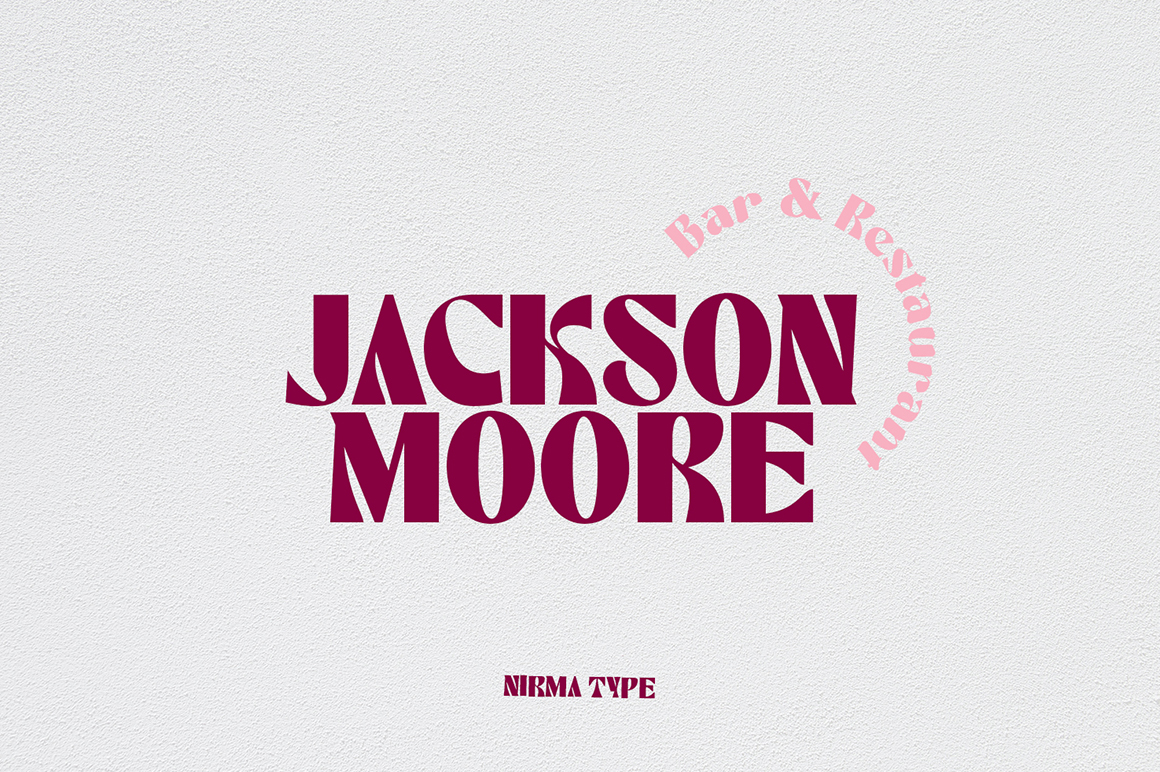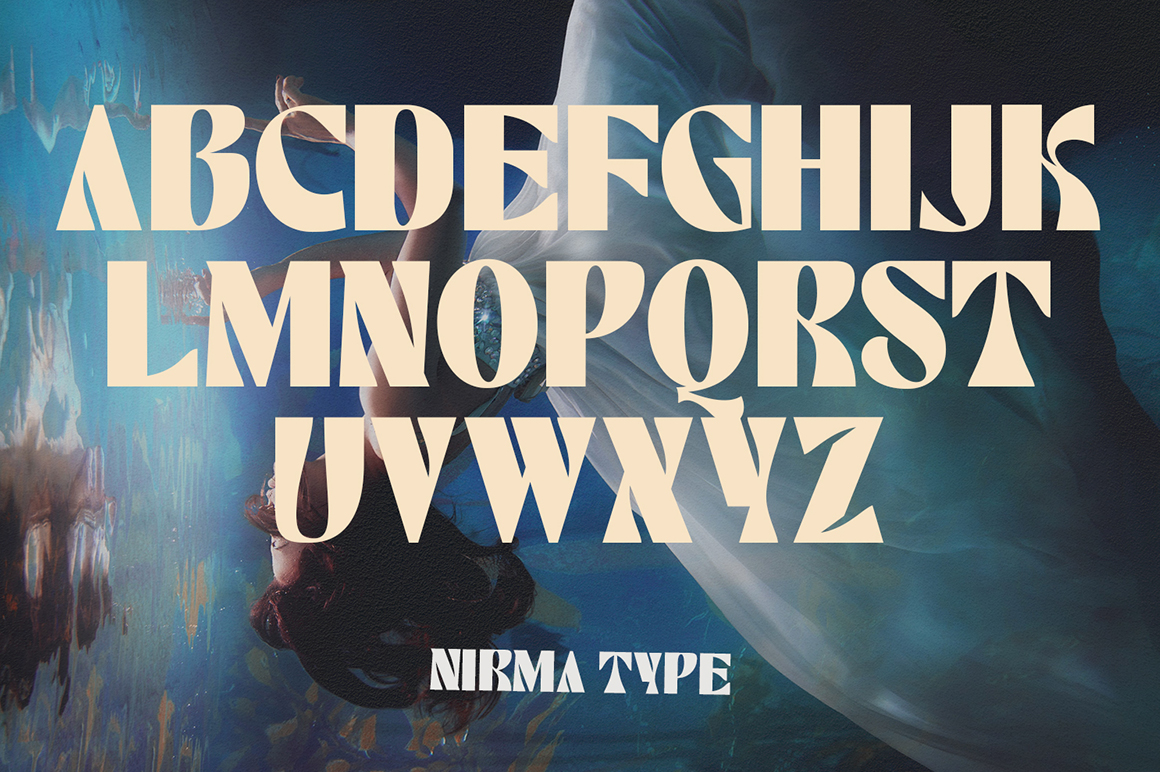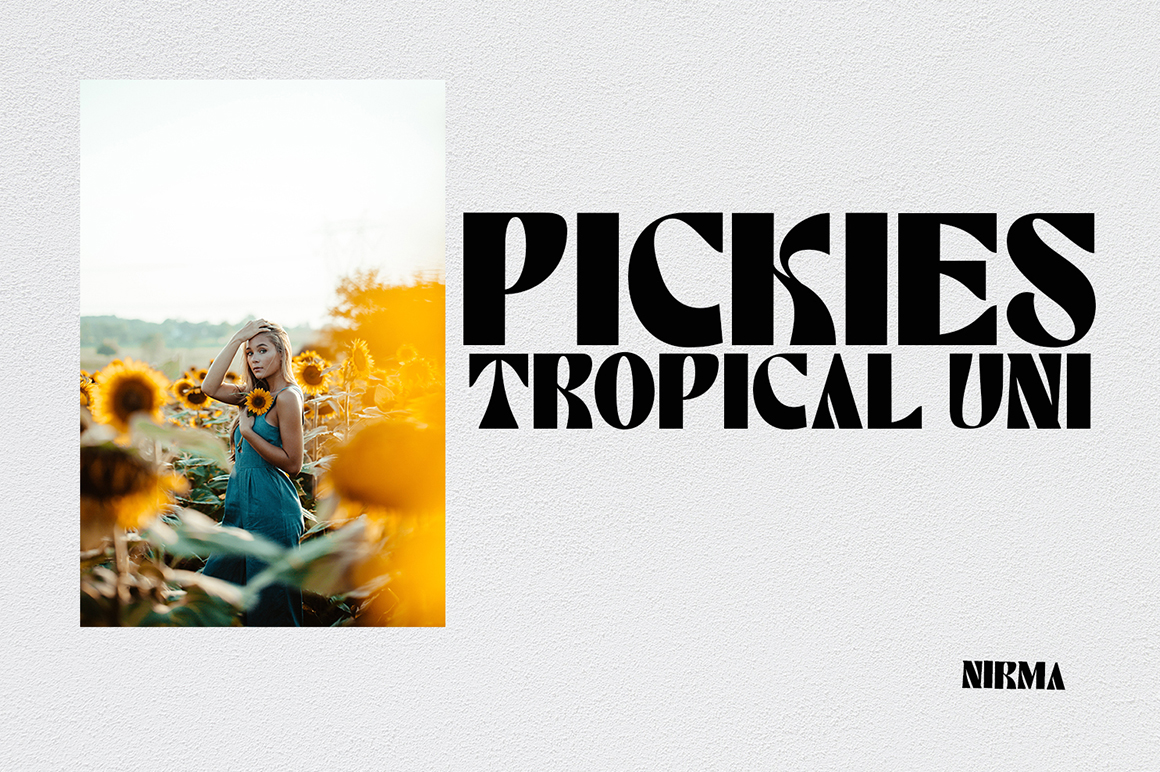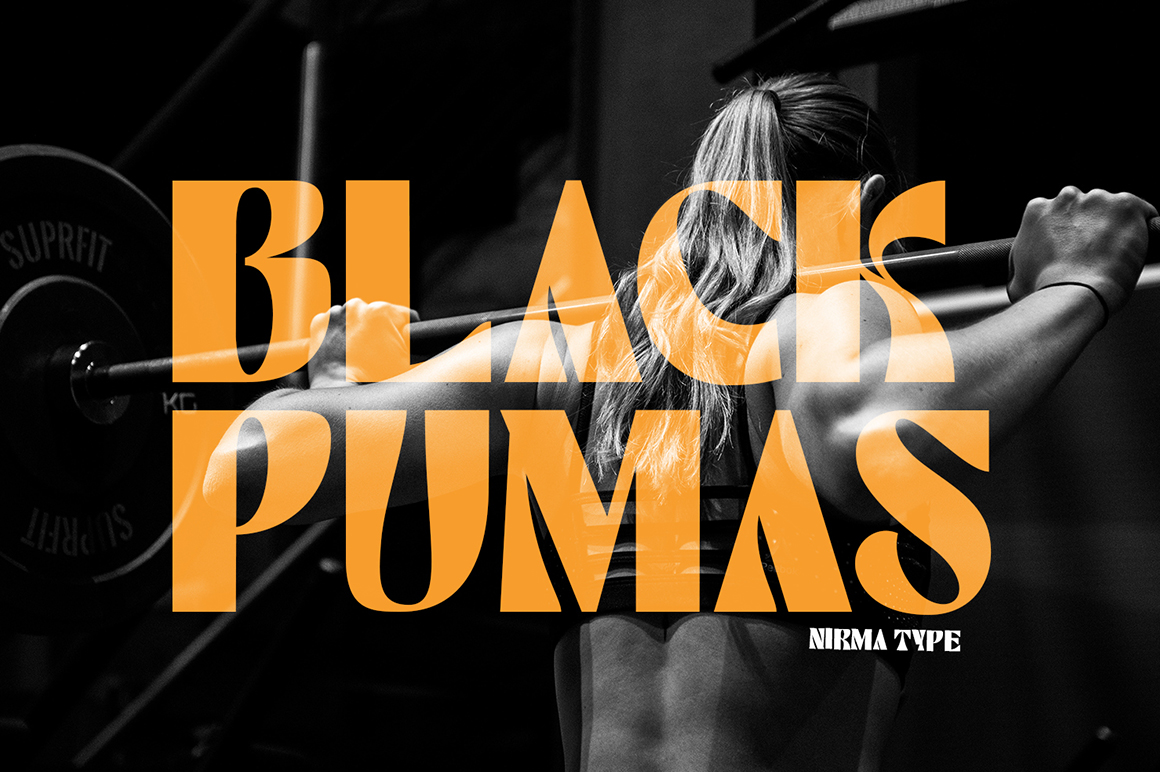
Nirma Font
Nirma Display Font
Introducing Nirma Font, use this font for any branding, product packaging, invitation, quotes, t-shirt, label, poster, logo etc.